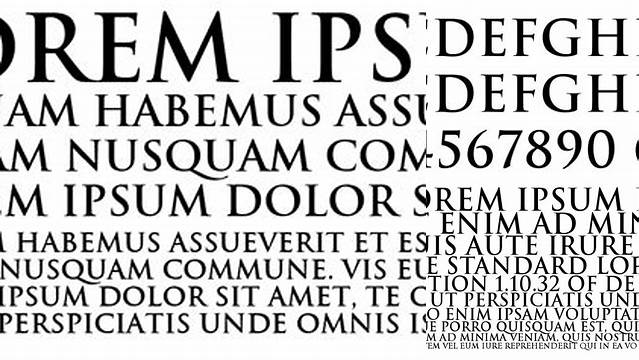
Are you looking to add a touch of ancient Roman elegance to your design projects? Trajan Bold font is a fantastic choice! This typeface, inspired by the inscriptions on the Trajan column in Rome, exudes a sense of history, authority, and timeless beauty. In this article, we'll explore the allure of Trajan Bold, its best uses, and where you can find it for free download. So, let's dive in and discover how this classic font can elevate your creative endeavors!
What Makes Trajan Bold So Special?
Trajan Bold isn't just another font; it's a carefully crafted typeface with a rich heritage. Designed by Carol Twombly in 1989 for Adobe, Trajan is an all-caps font based on the letterforms found on the base of Trajan's Column, a monument erected in 113 AD to honor the Roman Emperor Trajan. The font embodies the characteristics of Roman square capitals, known for their clean lines, balanced proportions, and dignified appearance.
Here's what makes Trajan Bold stand out:
- Historical Significance: Its direct link to Roman history lends an air of authenticity and gravitas to any design.
- Elegant Design: The meticulously crafted letterforms exude sophistication and visual appeal.
- All-Caps Format: While some may see this as a limitation, the all-caps design contributes to the font's commanding presence.
- Bold Weight: The bold weight amplifies the font's impact, making it ideal for headlines, titles, and other prominent text elements.
- Versatility: Despite its historical roots, Trajan Bold can be used in a variety of modern design contexts.
Best Uses for Trajan Bold Font
Trajan Bold's unique aesthetic makes it suitable for a wide range of design applications. However, it truly shines when used in projects that aim to convey authority, elegance, or a sense of history. Let's explore some specific examples:
- Movie Posters: Trajan Bold has become a staple in the film industry, particularly for historical dramas, epic adventures, and serious thrillers. Its commanding presence helps create a sense of anticipation and importance.
- Book Covers: Similarly, Trajan Bold can add a touch of sophistication and intrigue to book covers, especially for historical fiction, non-fiction, and literary works.
- Corporate Branding: High-end brands in fields such as finance, law, and luxury goods often use Trajan Bold to project an image of stability, trustworthiness, and prestige.
- Wedding Invitations: For couples seeking a classic and elegant touch, Trajan Bold can be used to create sophisticated wedding invitations and stationery.
- Museum Exhibits: Trajan Bold is frequently used in museum exhibits and signage to provide context and authority to historical artifacts and information.
- Certificates and Awards: Its formal and dignified appearance makes it an excellent choice for certificates, awards, and other official documents.
Tips for Using Trajan Bold Effectively
To make the most of Trajan Bold, keep these tips in mind:
- Use Sparingly: Trajan Bold is a powerful font, so use it sparingly to avoid overwhelming your design. Reserve it for headlines, titles, and other key text elements.